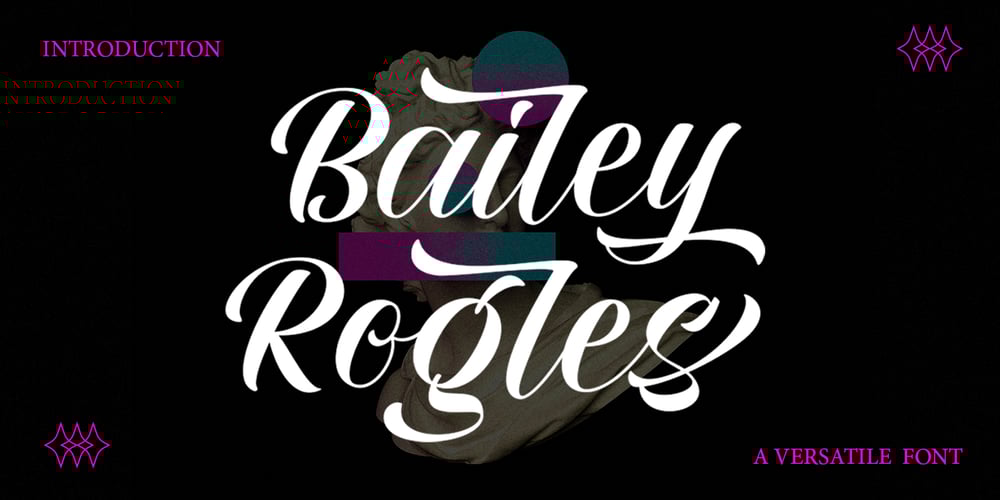
Bailey Rogles
Bailey Rogles font
Bailey Rogles Font Family was designed by Rizki Agam Fonna and published by RCKY Studio. Bailey Rogles contains 1 styles and family package options. Bailey Rogles is a retro signage font, bold and clean. There are so many variations on each character. You can create so many different typographic layouts easily and quickly. Bailey Rogles is very versatile and very interesting. You have lots of options to customize it and that makes it perfect for logos, packages, t-shirts, signage, logos, headlines, branding, packaging, and titles.Bailey Rogles features an alternate character. Includes initial and terminal letters, alternates, ornaments, swashes, ligatures and multiple language support.Thank you for your purchase!